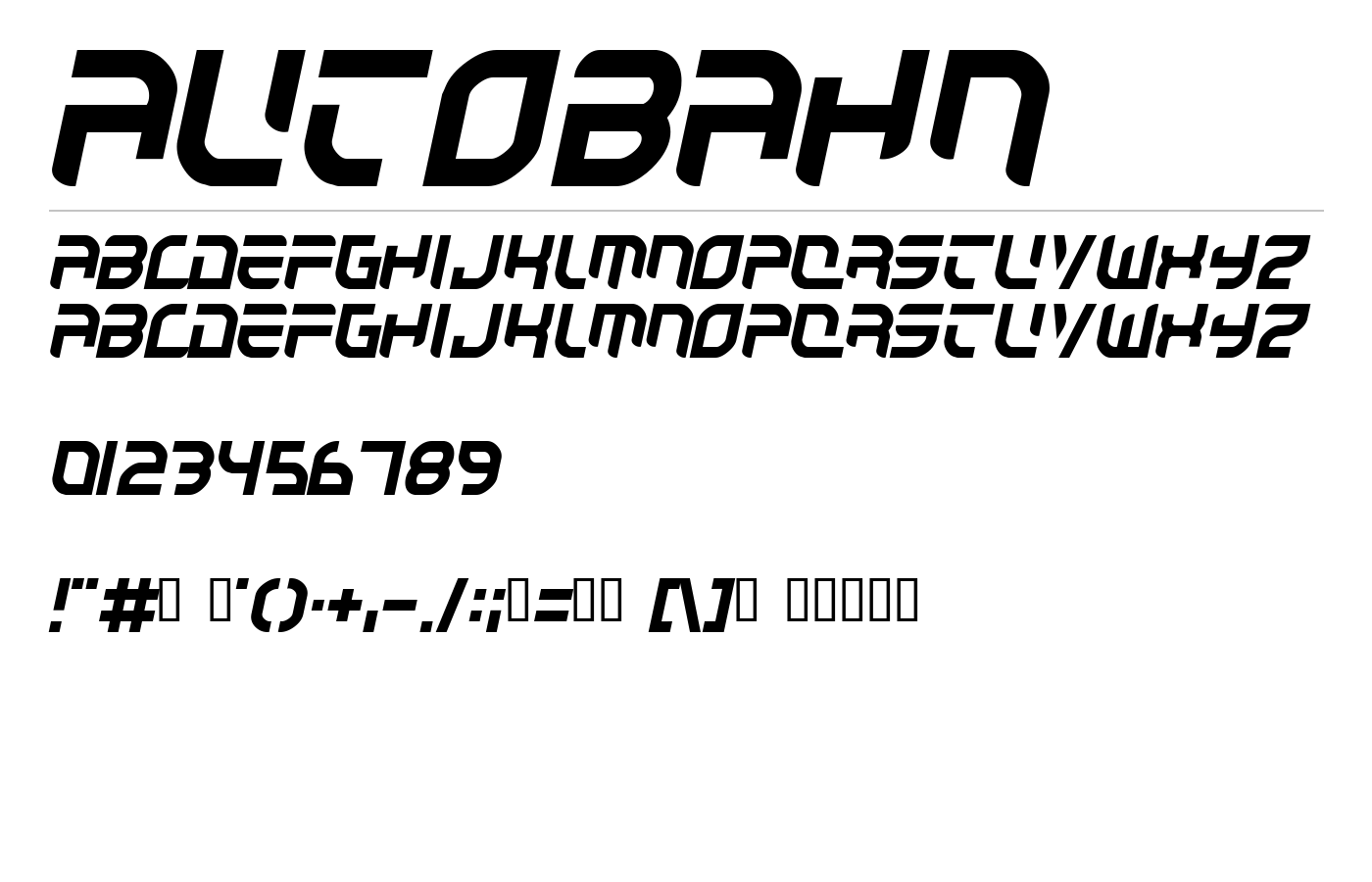
Autobahn is a bold, condensed sans serif font with a futuristic and dynamic feel, characterized by sharp angles and streamlined curves that suggest speed and modernity. Its high contrast strokes and italicized, forward-leaning forms make it ideal for branding, headlines, and designs that want to convey energy and innovation, especially in automotive or tech-related contexts. This font works best where a sleek, contemporary look is desired to capture attention and communicate a sense of motion and precision.
Autobahn Font